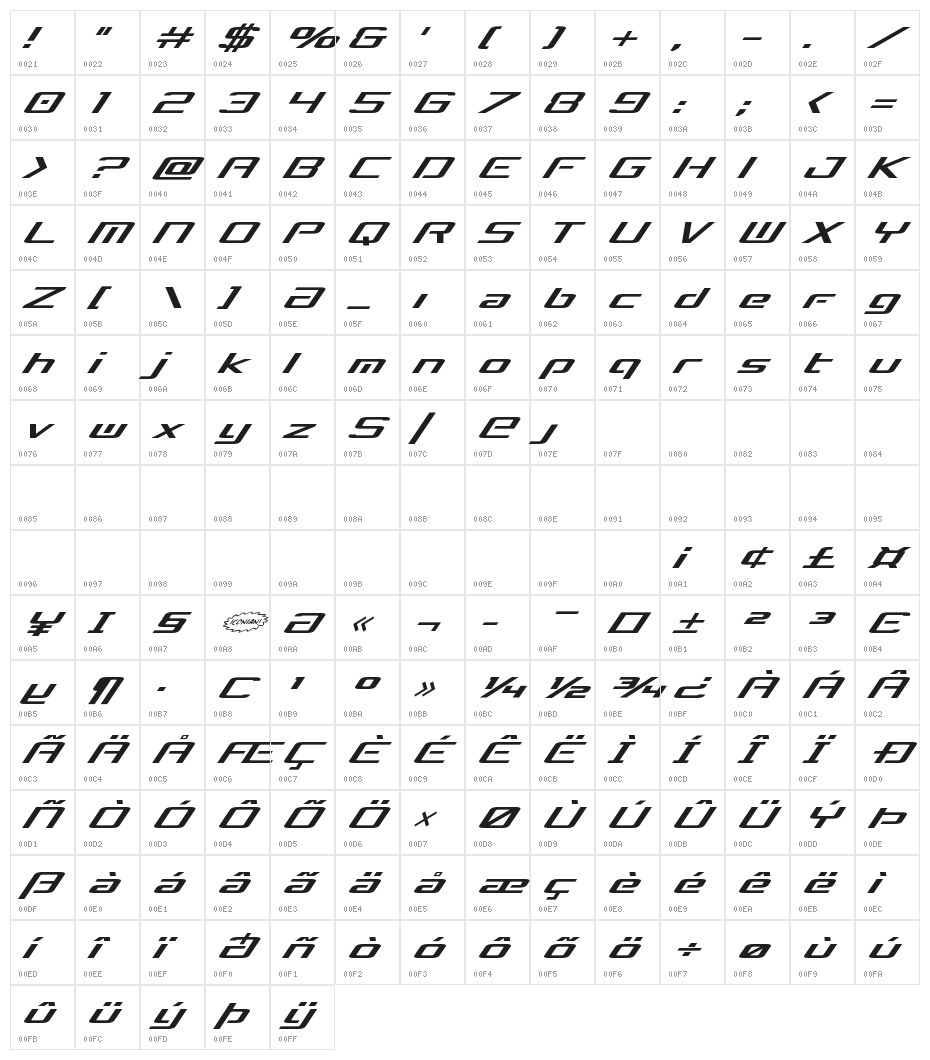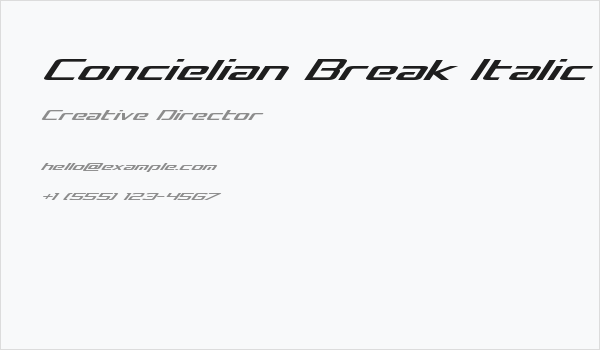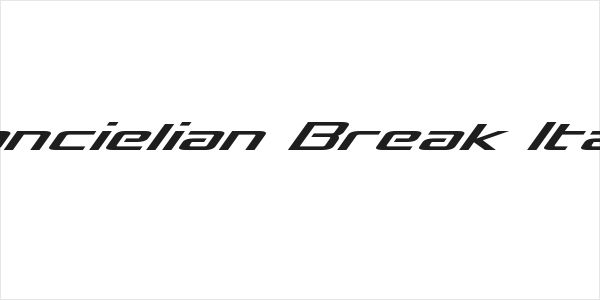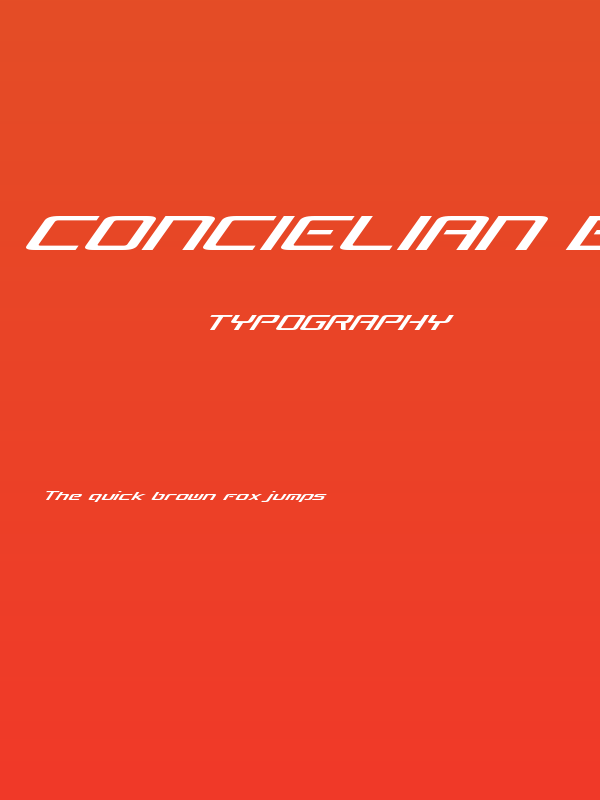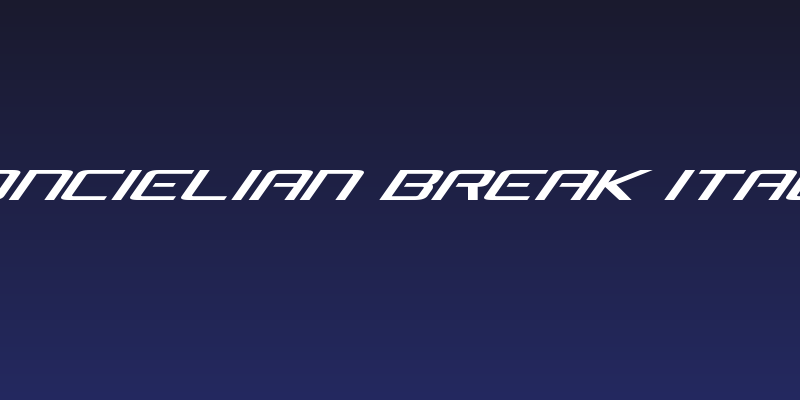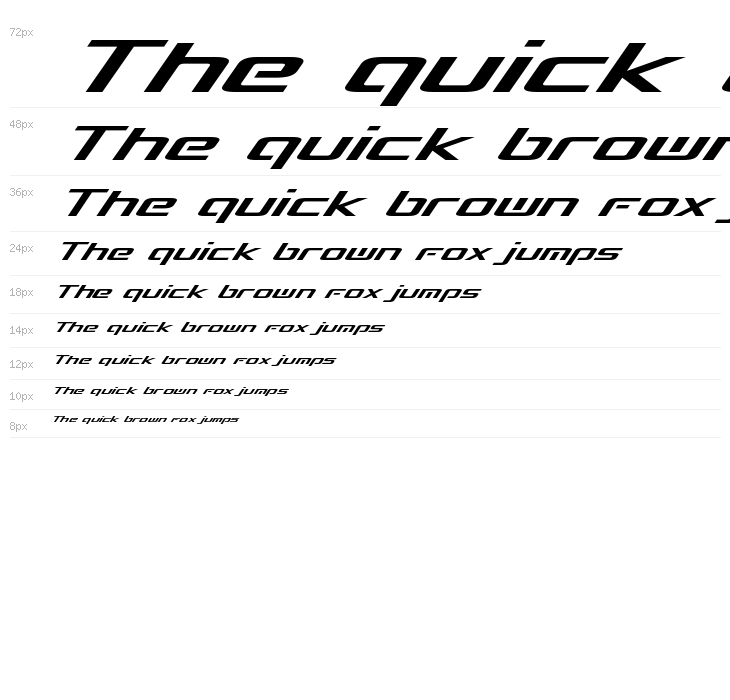
Concielian Break Italic Font
Concielian Break Italic Description
This font features a sleek, italicized design with a futuristic and dynamic appearance. The characters are slightly slanted, giving a sense of motion and speed. The strokes are uniform in thickness, providing a clean and consistent look. The angular and geometric shapes of the letters contribute to its modern aesthetic, making it suitable for projects that require a contemporary and edgy feel. The font maintains a balanced spacing between characters, ensuring readability while preserving its stylish flair.
| Use Case | Logos, Headlines, Digital Interfaces |
| Proposed Projects | Ideal for technology branding, sports team logos, automotive advertisements, and modern digital interfaces. |